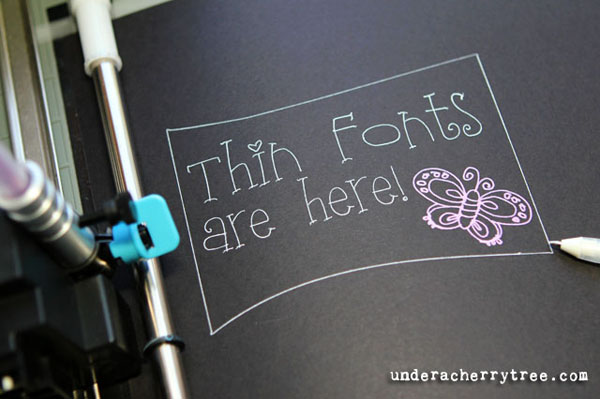
A thin Font is a single-line font. A person can put a pen, crayon, or a number of tools right into the "claw" of a cutting machine rather than a blade and use the machine to "draw" instead of "cut". When you do that with a regular font (.ttf or .otf) the machine traces the outline of the font so rather than having a single line, you get a double line.
When you use a font (.ttf or .otf file) on your computer, it will typically look something like this example (unless it is an outlined version of a font):
font from a printer example
When you use a font (.ttf or .otf file) in the software of your cutting machine, it will trace the outside perimeter of each letter and typically look something like this example):
font in a cutting machine example
Thin fonts are created so that a cut machine does not trace the font but makes them with single strokes much like you would if you were writing.
Projects using thin fonts